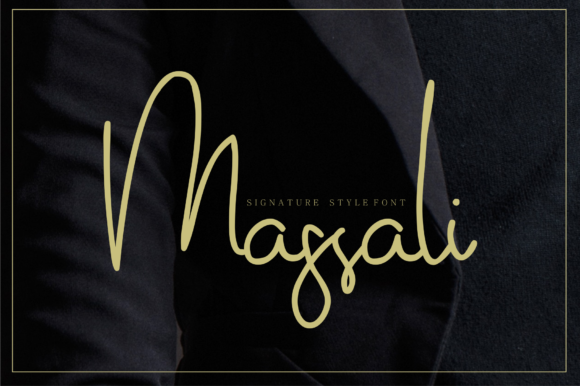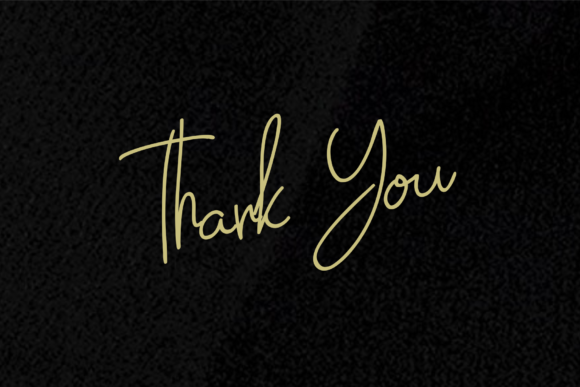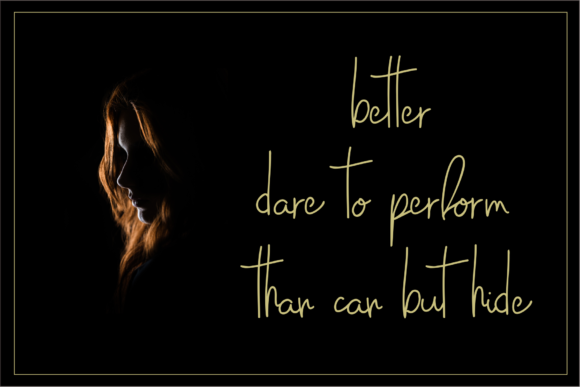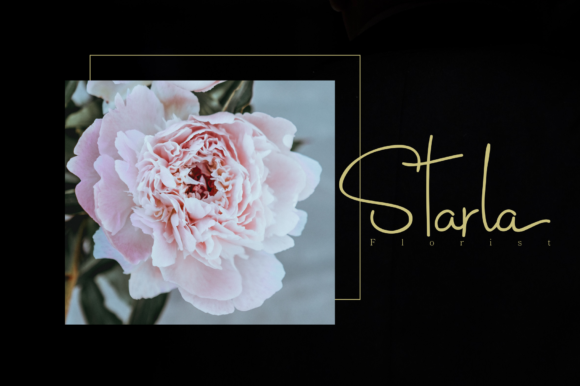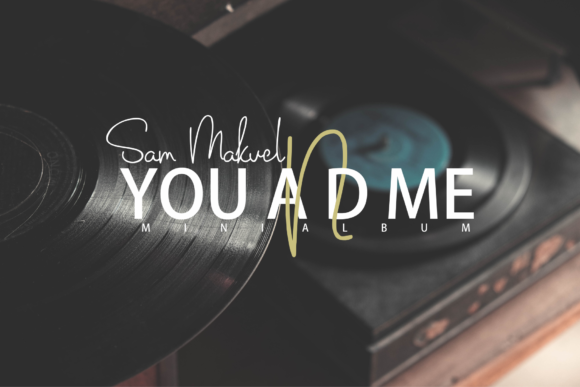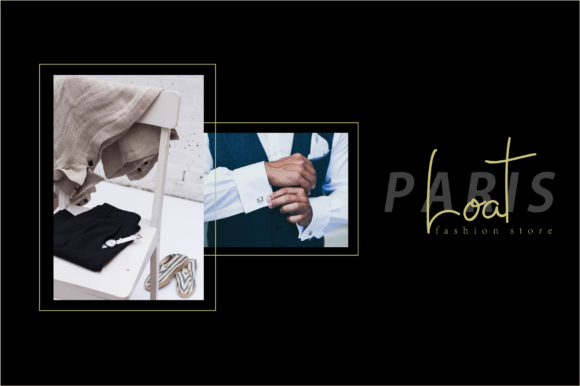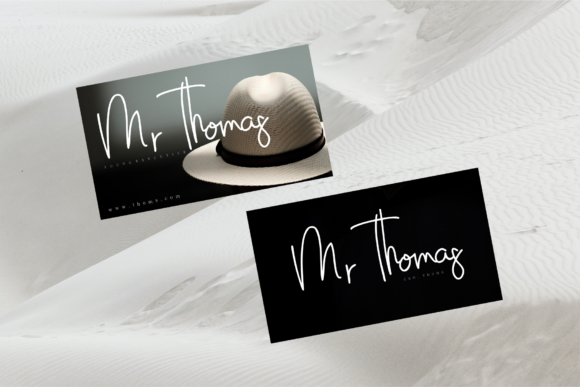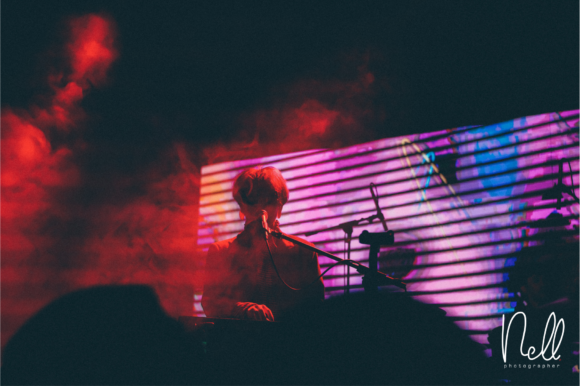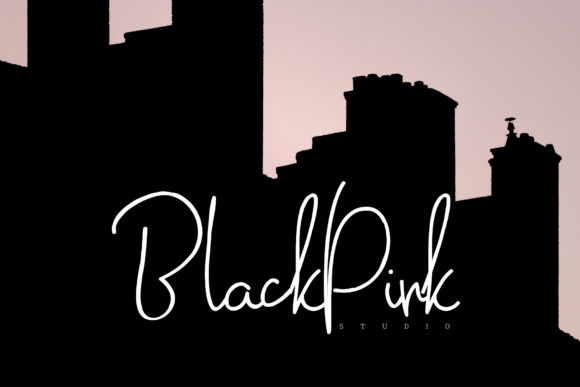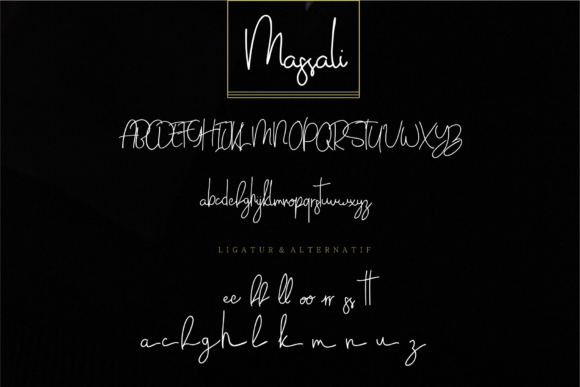
Massali Font
About Massali Font
Massali is a gorgeous thin, monoline script font that adds a ton of classiness to any associated project! This font pairs well with a ton of different font styles, and is as easy to use as it is stylish.